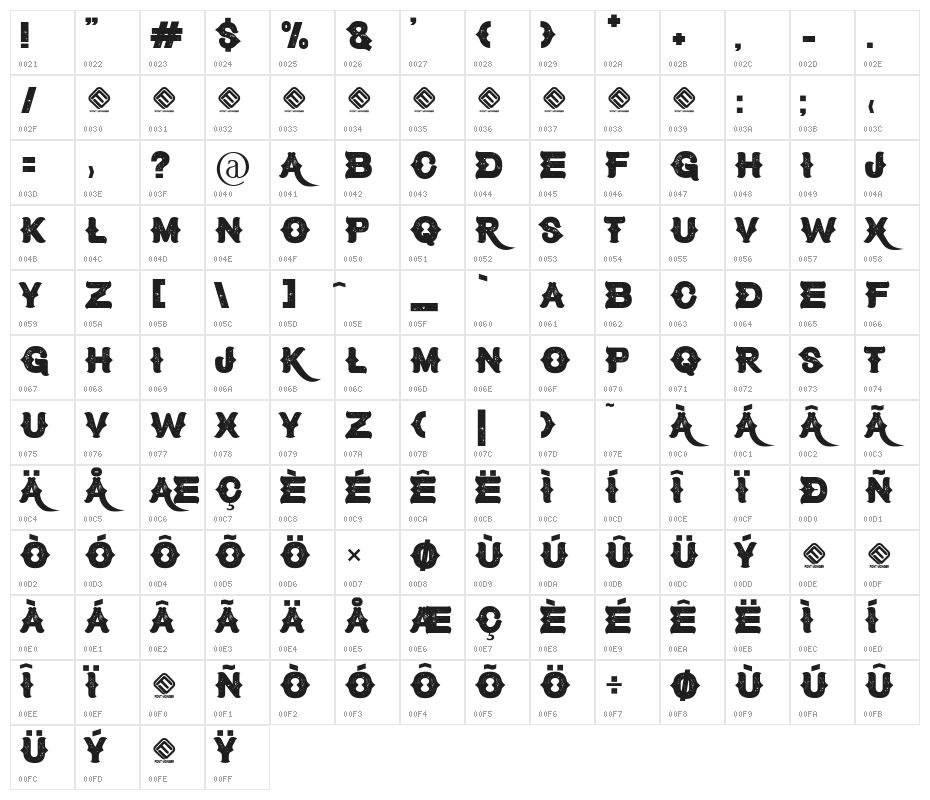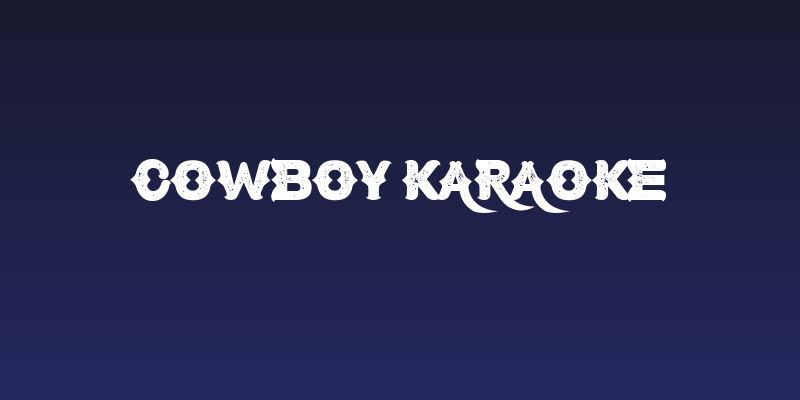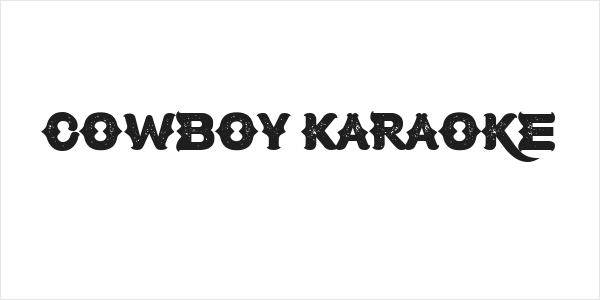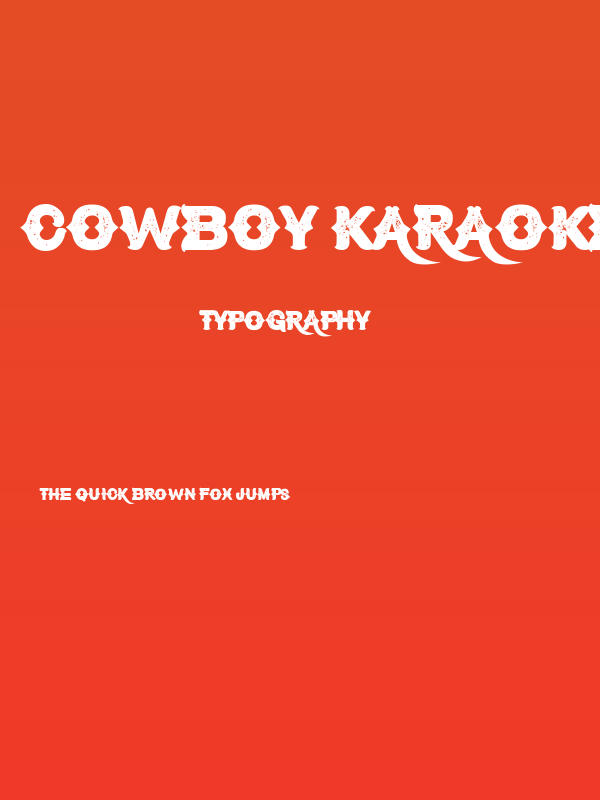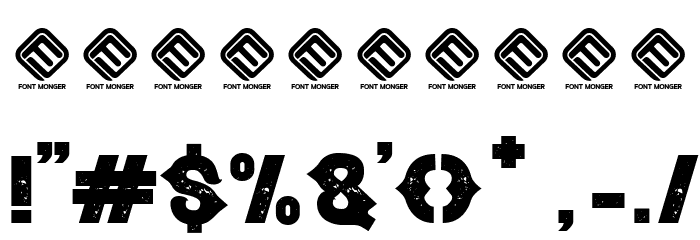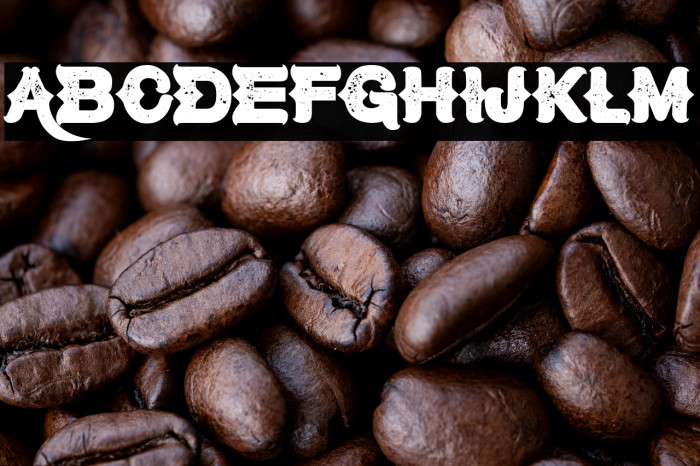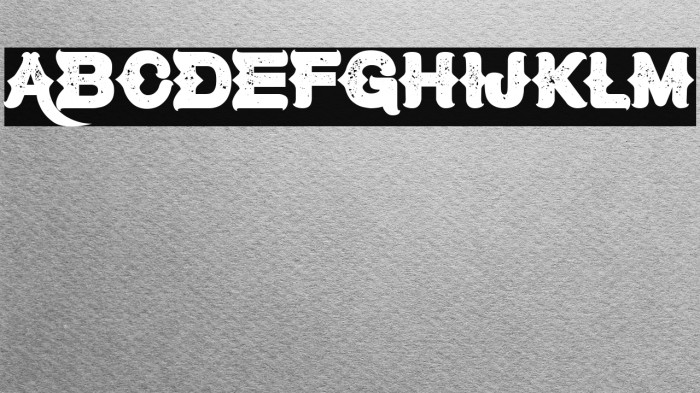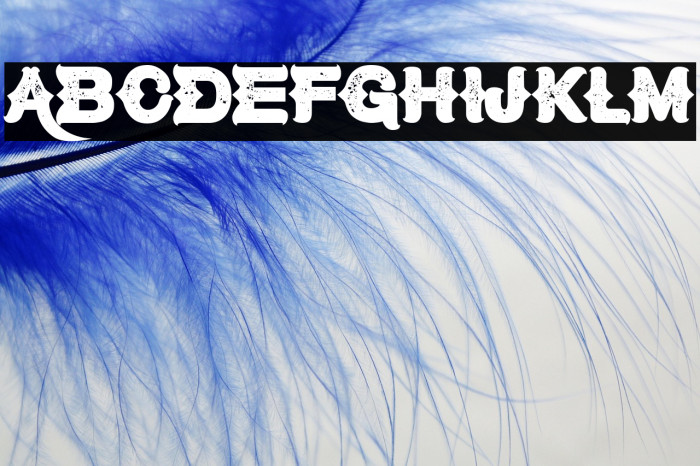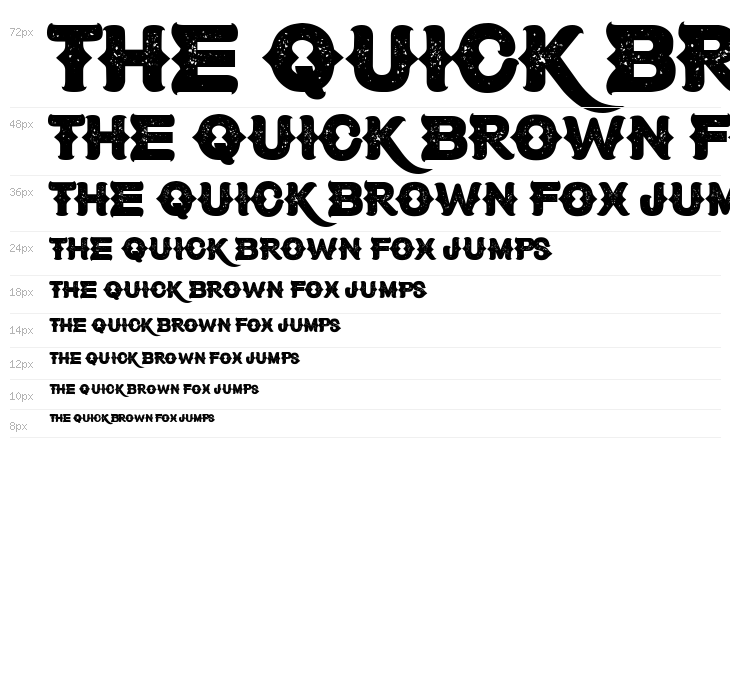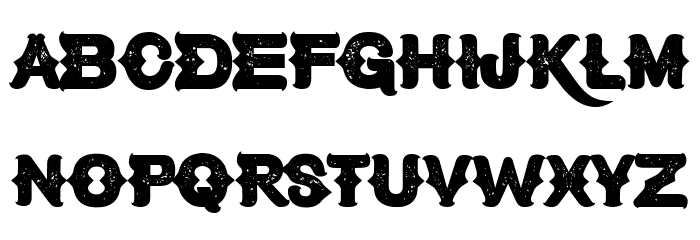
Cowboy Karaoke Font
Cowboy Karaoke Description
This font features a bold, decorative style with a distinctly western flair. The characters are heavily stylized with unique embellishments that evoke a sense of ruggedness and adventure. Each letter is adorned with subtle distressing, giving it a vintage, worn look that adds character and depth. The font's thick strokes and bold presence make it ideal for eye-catching designs. Its decorative elements, such as spurs and serifs, enhance its cowboy theme, making it perfect for projects that require a touch of the wild west.
| Overall Style | Vintage, Decorative |
| Proposed Projects | Ideal for posters, signage, branding, and themed events that require a western or vintage aesthetic. |